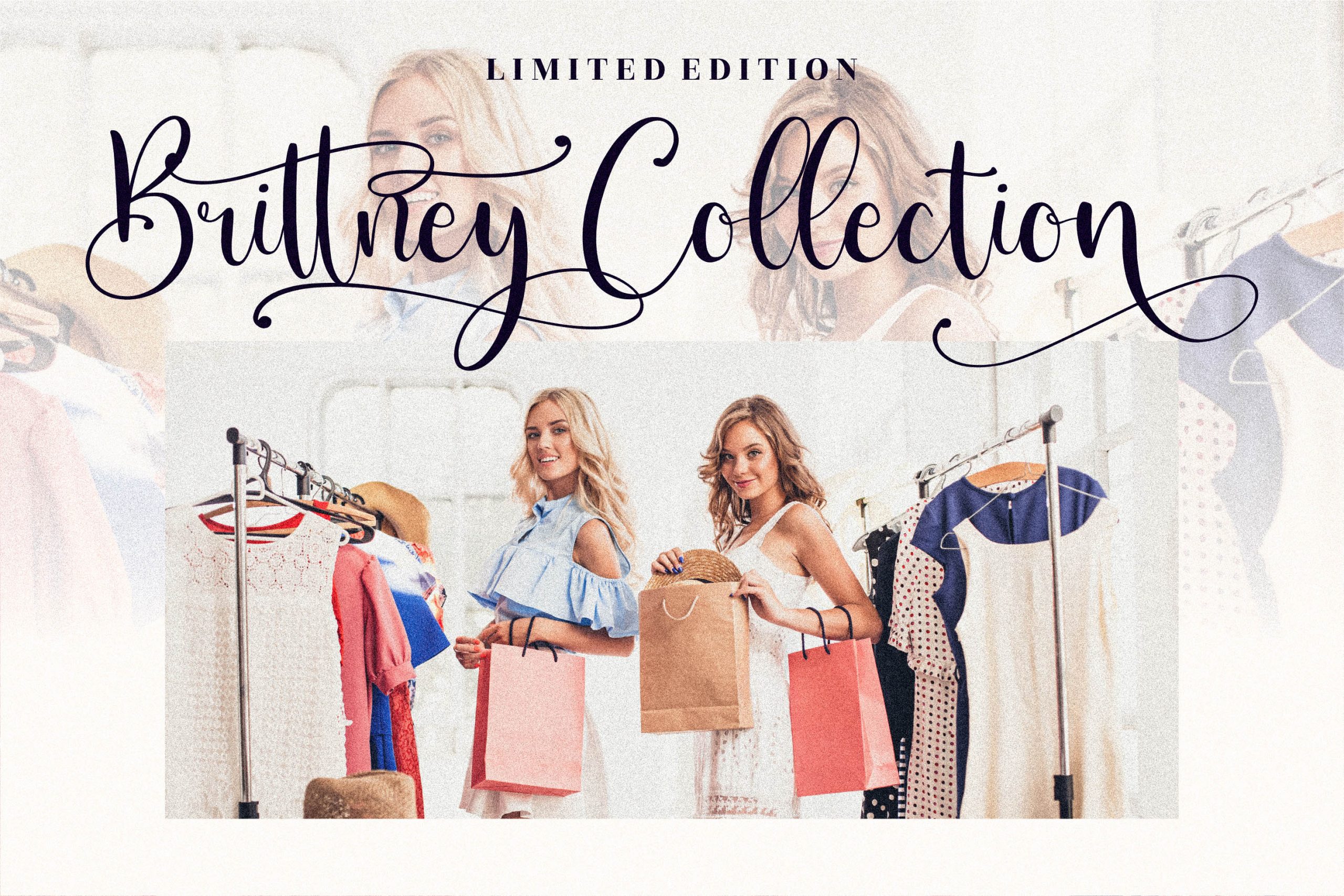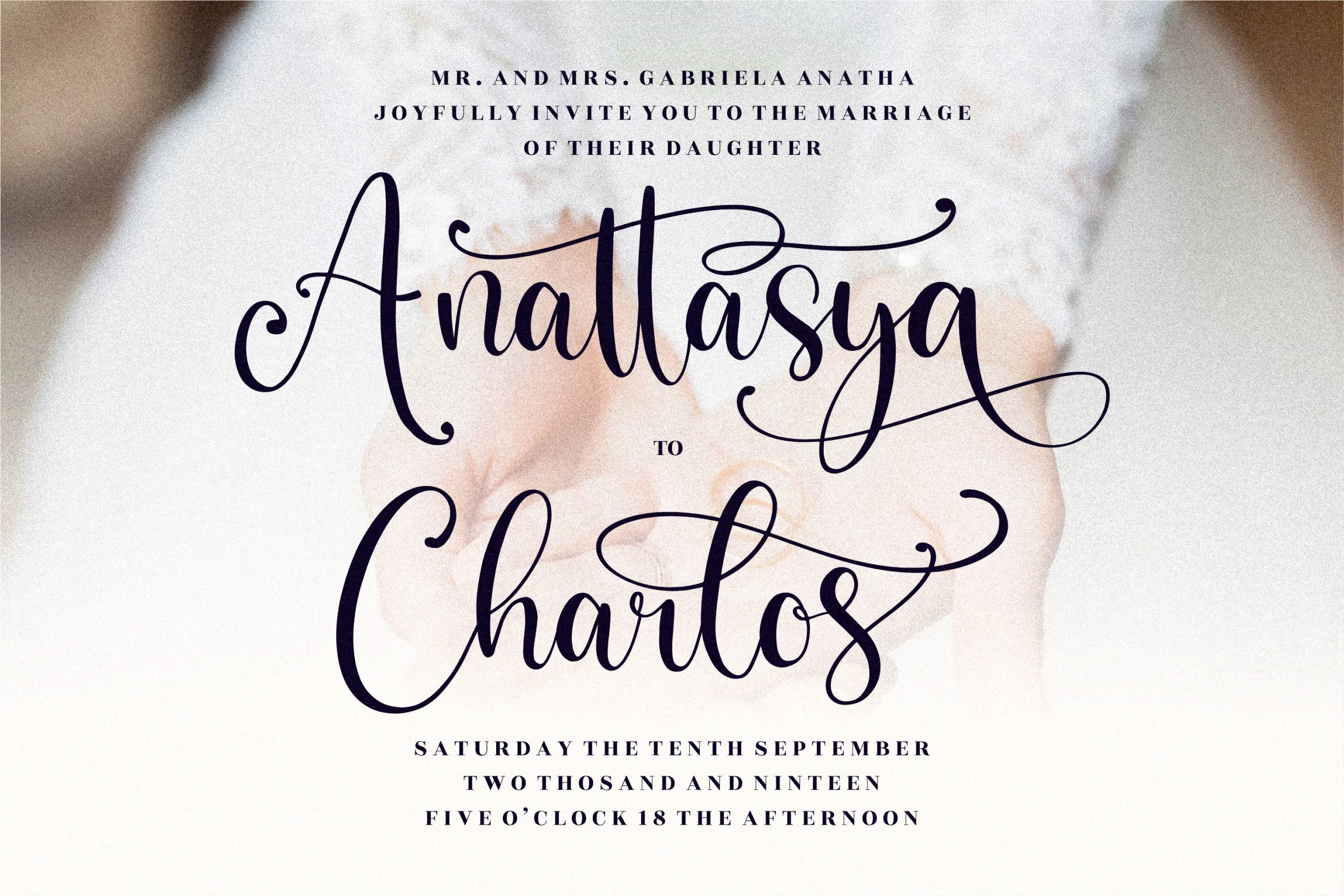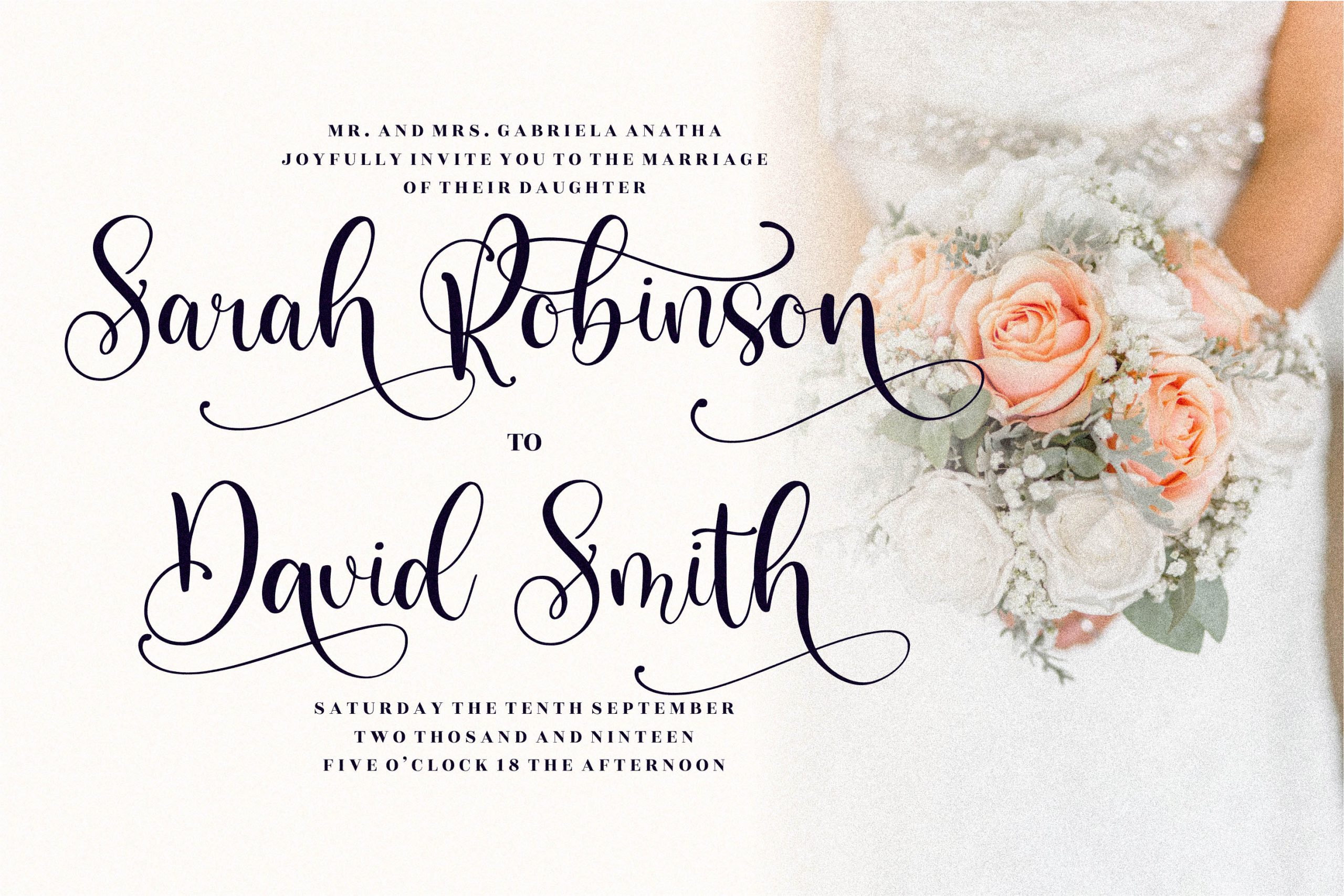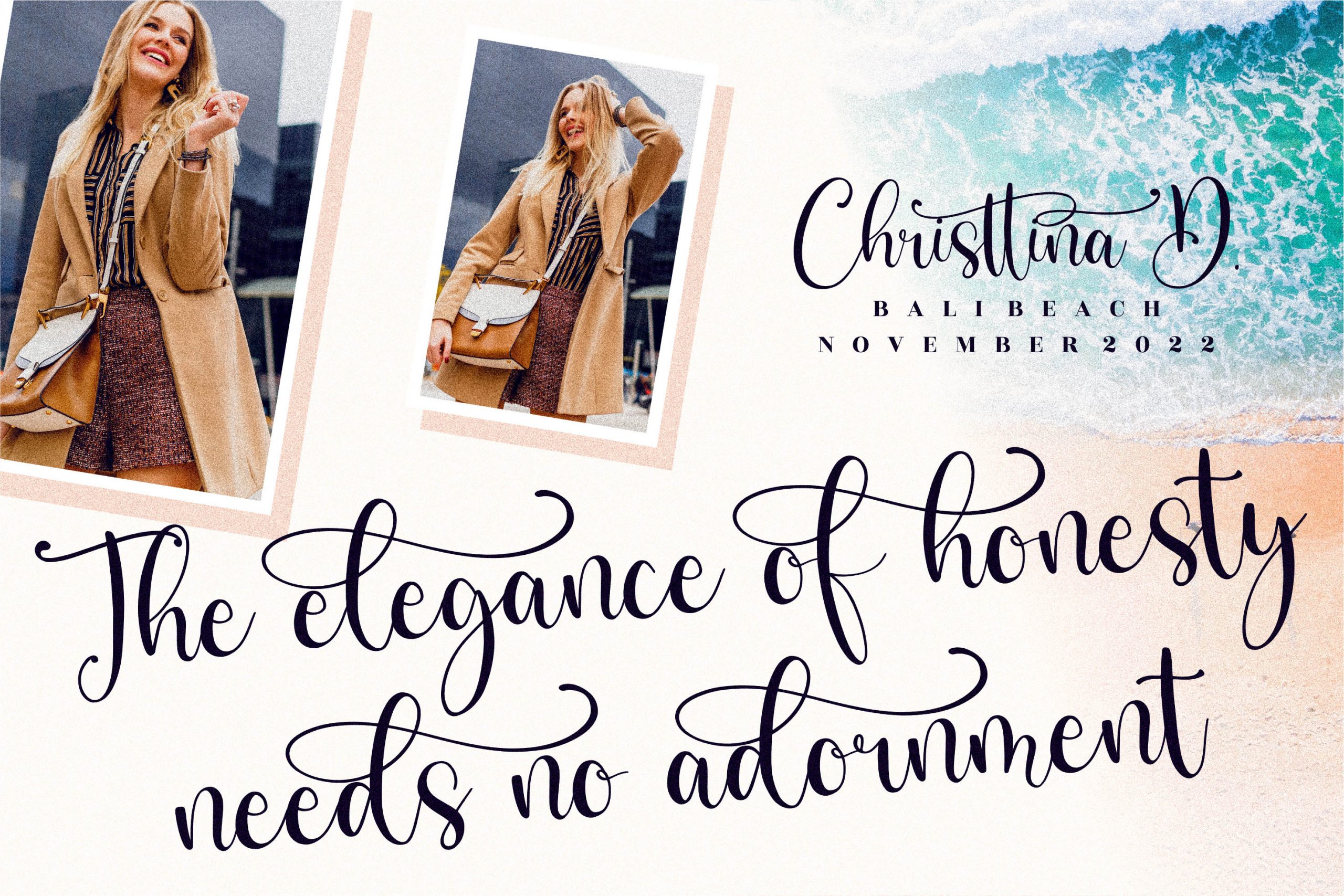
Benttaria Delissha Font
Benttaria Delissha Calligraphy Font
This is a romantic calligraphy font, suitable for any projects such as: logos, branding projects, homeware designs, product packaging, mugs, quotes, posters, shopping bags, t-shirts, book covers, name card, invitation cards, greeting cards, label, photography, watermark, special events, and all your other lovely projects that need a beautiful script taste.